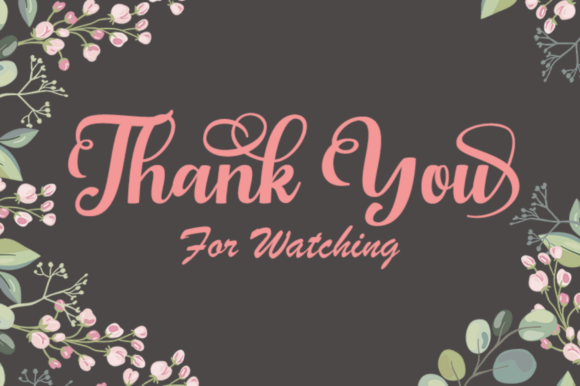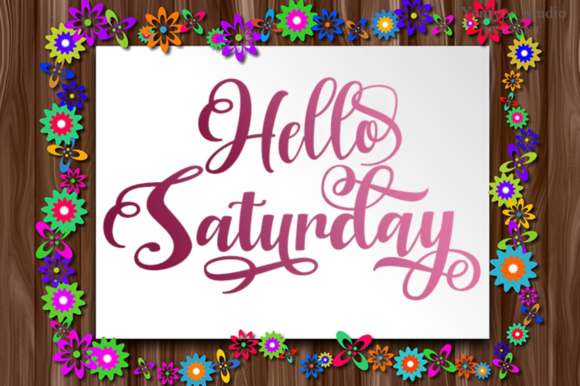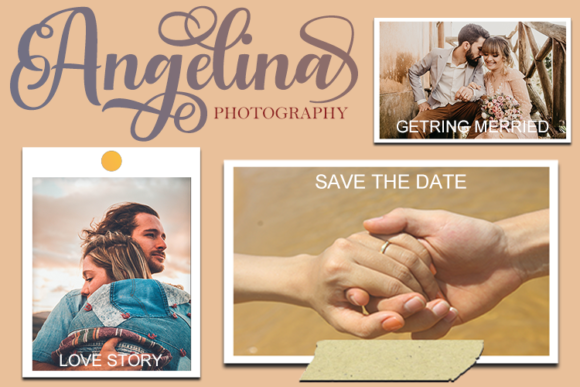
About Regina Font
Regina is a delicate and elegant handwritten font. Its distinct and well rounded letters make this font a masterpiece. Fall in love with its incredibly versatile style and use it to create spectacular designs!